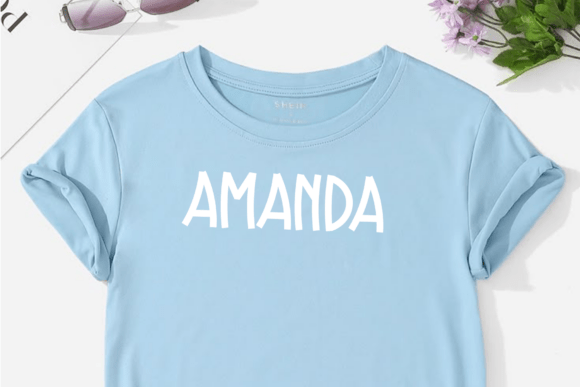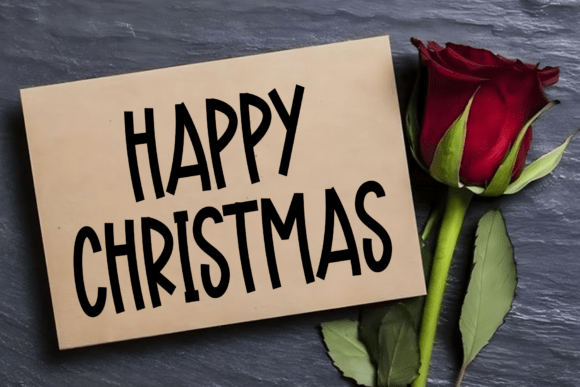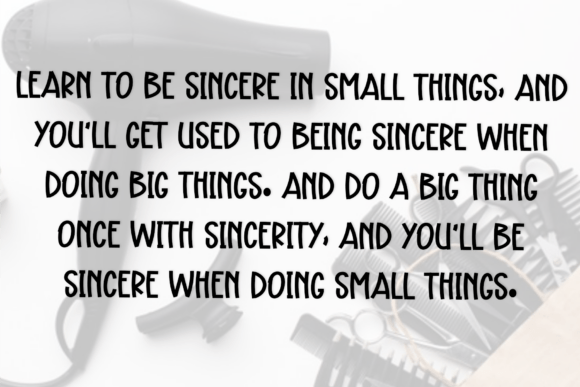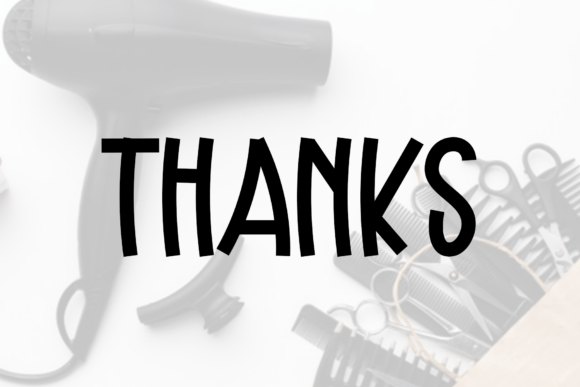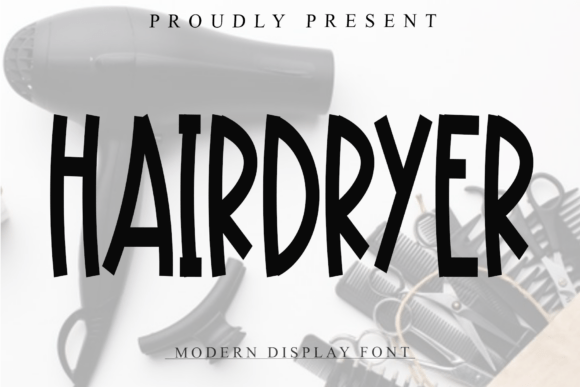
Introducing Hairdryer Font: The Perfect Blend of Organic Charm and Typographic Sophistication
In the world of typography, few fonts manage to strike a balance between organic charm and strong typographic presence. Hairdryer Font is one such exceptional typeface that seamlessly blends the warmth of handwritten elements with the sophistication of professional design. This stylish handwritten font is part of the “Unique and Professional” collection, making it an ideal choice for designers and crafters looking to add a touch of personality to their projects.
Characteristics of Hairdryer Font
Hairdryer Font boasts thick, solid strokes that give it a robust and dependable appearance. However, what truly sets it apart is its distinct “bouncy” rhythm, which infuses the font with a friendly and approachable character. This unique blend of strength and playfulness makes Hairdryer Font versatile and suitable for a wide range of design applications.
One of the key features of Hairdryer Font is its well-balanced proportions. Even in busy designs, this font remains impactful and easy to read, ensuring that your message is conveyed effectively. Whether you’re working on outdoor lifestyle branding, organic product packaging, travel-themed graphics, or rustic event invitations, Hairdryer Font is perfectly suited to bring your creative vision to life.
Design Applications for Hairdryer Font
With its unique blend of organic charm and typographic sophistication, Hairdryer Font is an excellent choice for various design projects. Here are some of the ideal applications for this versatile font:
- Outdoor Lifestyle Branding: Hairdryer Font is perfect for creating logos, signage, and marketing materials for outdoor gear companies, adventure travel brands, and eco-friendly product lines.
- Organic Product Packaging: The font’s natural, handwritten feel makes it an excellent choice for packaging design, especially for organic food, skincare, and craft products.
- Travel-Themed Graphics: Add a touch of adventure to your travel brochures, posters, and social media graphics with Hairdryer Font’s rustic, yet sophisticated charm.
- Rustic Event Invitations: Create unique and memorable invitations for weddings, festivals, and other events with Hairdryer Font’s handmade, organic feel.
Why Choose Hairdryer Font?
With so many fonts available, why choose Hairdryer Font for your design projects? Here are a few compelling reasons:
- Unique Character: Hairdryer Font offers a distinct, handwritten feel that sets it apart from more traditional typefaces.
- Versatility: The font’s well-balanced proportions and clear readability make it suitable for a wide range of design applications.
- Professional Quality: As part of the “Unique and Professional” collection, Hairdryer Font is designed to meet the highest standards of typographic excellence.
Tips for Using Hairdryer Font Effectively
To get the most out of Hairdryer Font, consider the following tips:
- Pair with Complementary Fonts: Combine Hairdryer Font with clean, sans-serif fonts to create visual interest and hierarchy in your designs.
- Experiment with Colors: Take advantage of Hairdryer Font’s organic feel by pairing it with earthy colors, rich textures, and natural imagery.
- Play with Scale: Use Hairdryer Font in various sizes to create visual emphasis and add depth to your designs.
In conclusion, Hairdryer Font is a stylish and versatile typeface that offers a unique blend of organic charm and typographic sophistication. With its well-balanced proportions, distinct “bouncy” rhythm, and professional quality, this font is perfect for designers and crafters looking to add a touch of personality to their projects. Whether you’re working on outdoor lifestyle branding, organic product packaging, travel-themed graphics, or rustic event invitations, Hairdryer Font is sure to bring your creative vision to life.